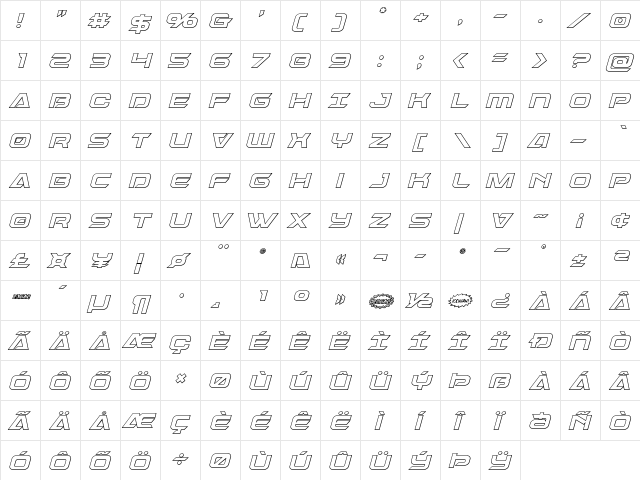
Dameron Outline Italic Outline Italic
Outline Italic ·  Daniel Zadorozny ·
DesignerDaniel Zadorozny
Design Context for Dameron Outline Italic Typeface
Dameron Outline Italic brings ornamental detail and strong personality to headlines and identities, where visual impact matters more than quiet functionality. The dynamic lean of this cut emphasises speed and emphasis in any layout.
Font Pairing: Pair with a clean neutral sans-serif for body copy to let Dameron Outline Italic's character lead without overwhelming the composition.
Pro Tip: Use Dameron Outline Italic exclusively at display sizes — it was designed to be seen, not read at length. Let a neutral companion handle body copy.